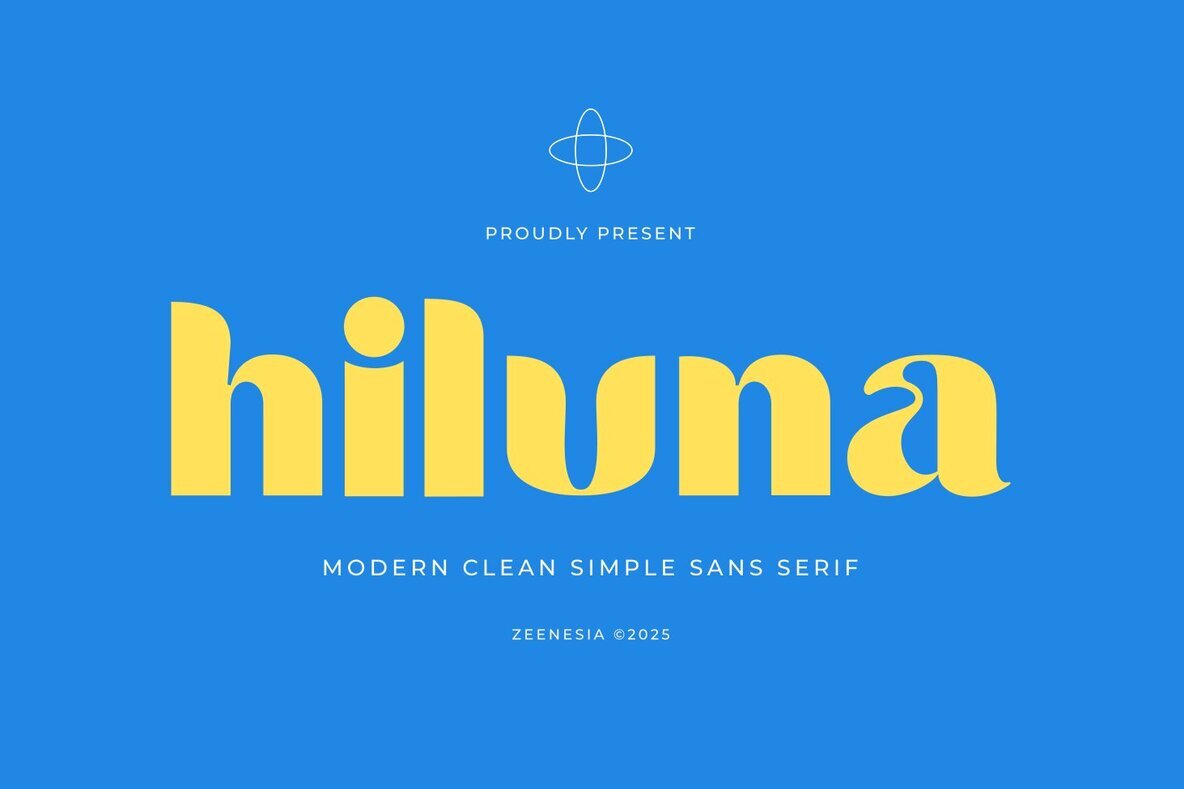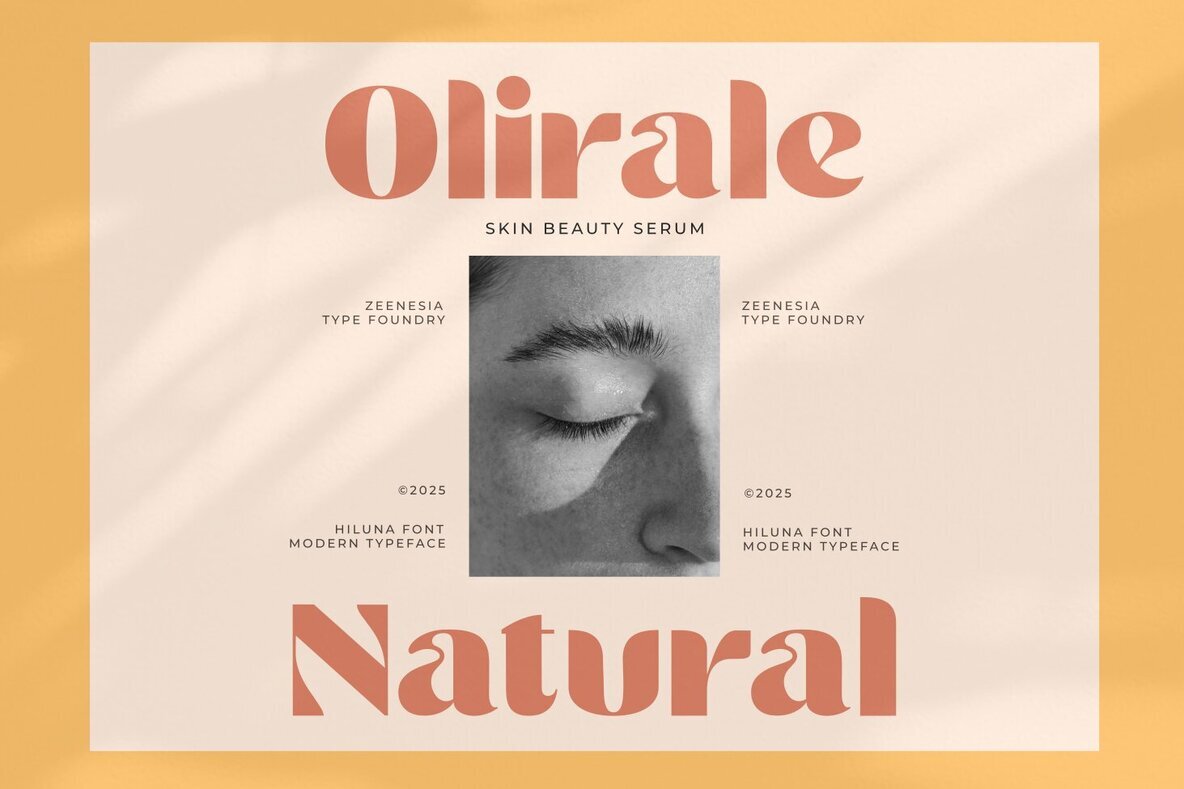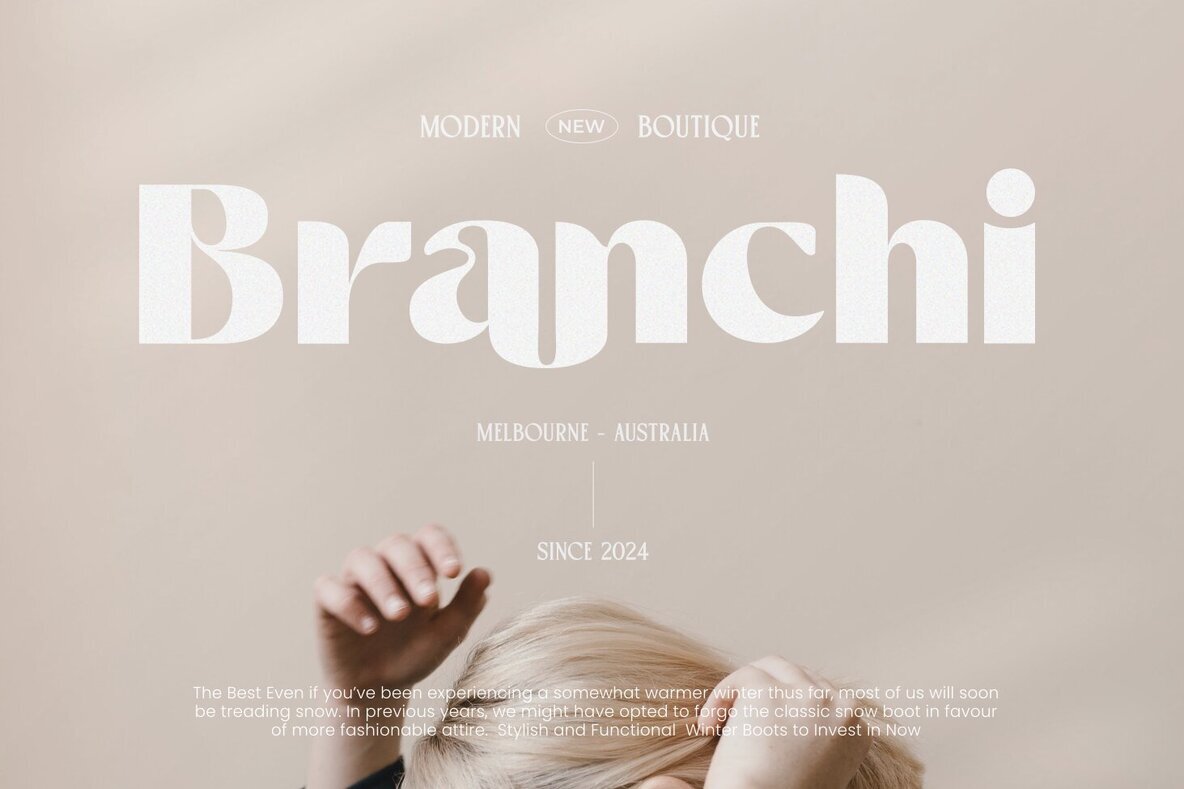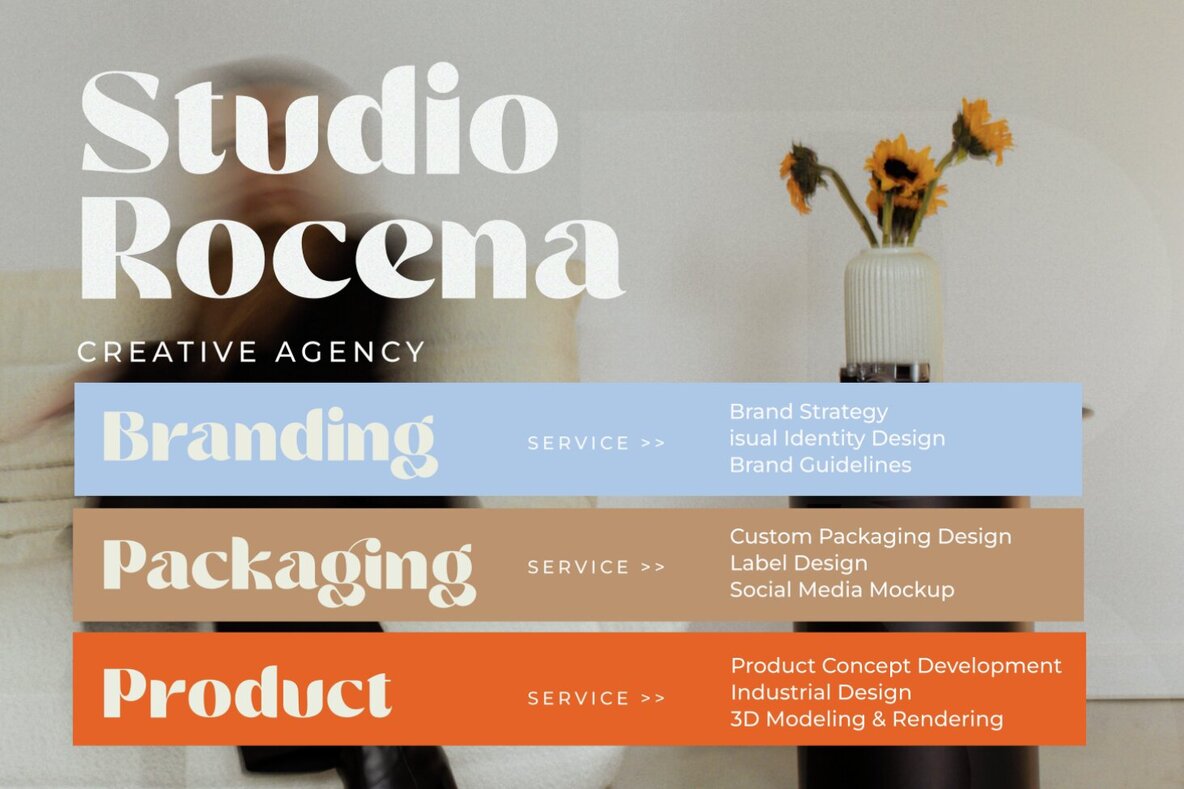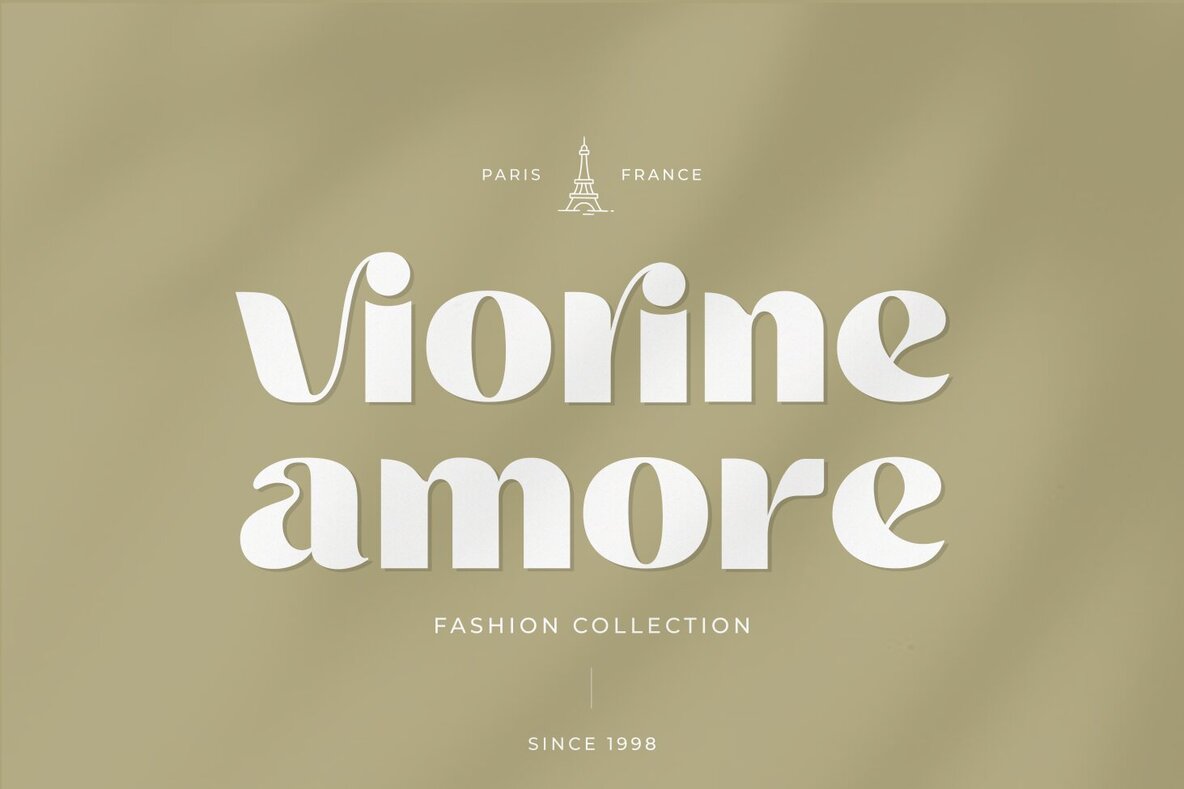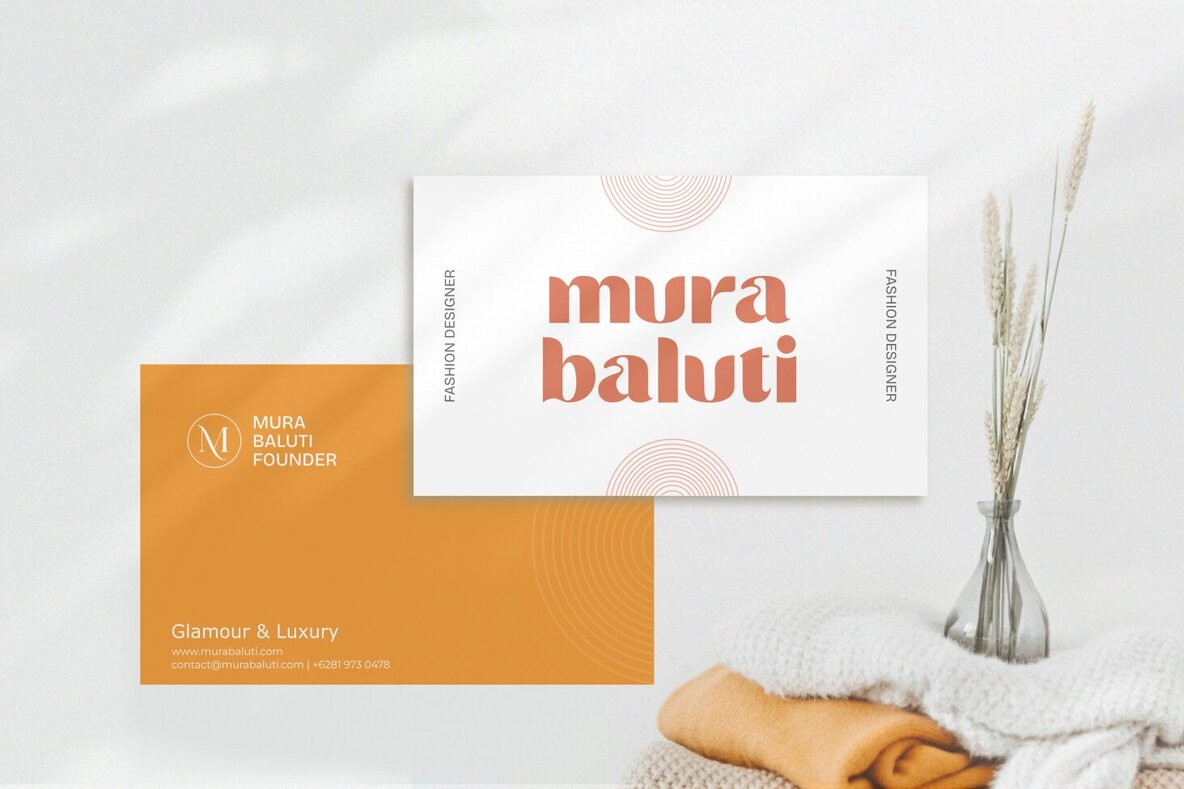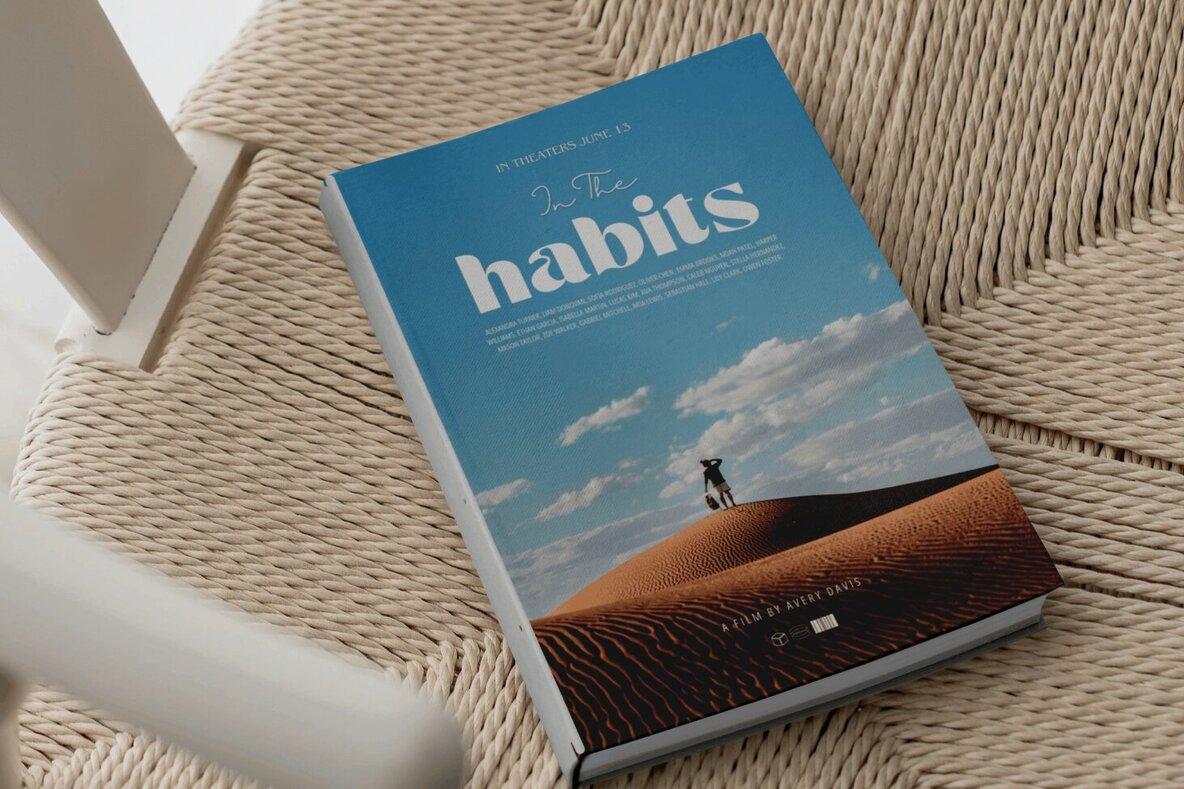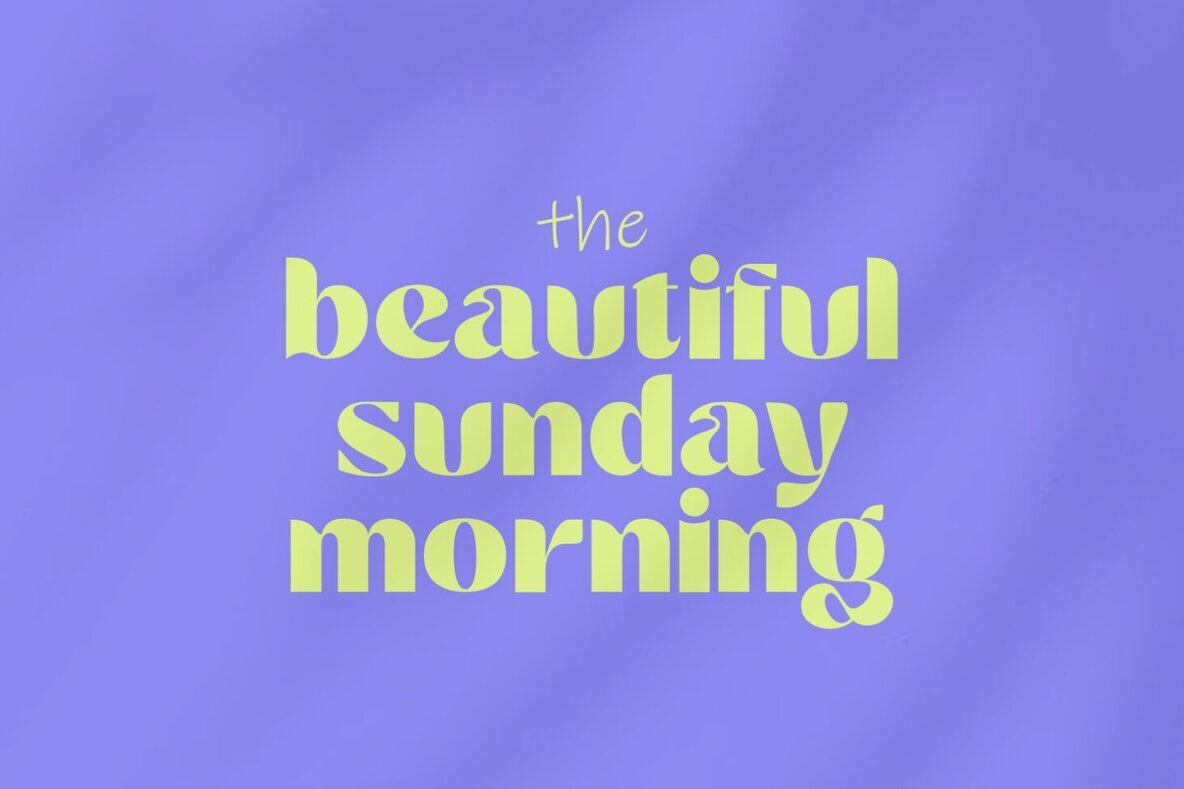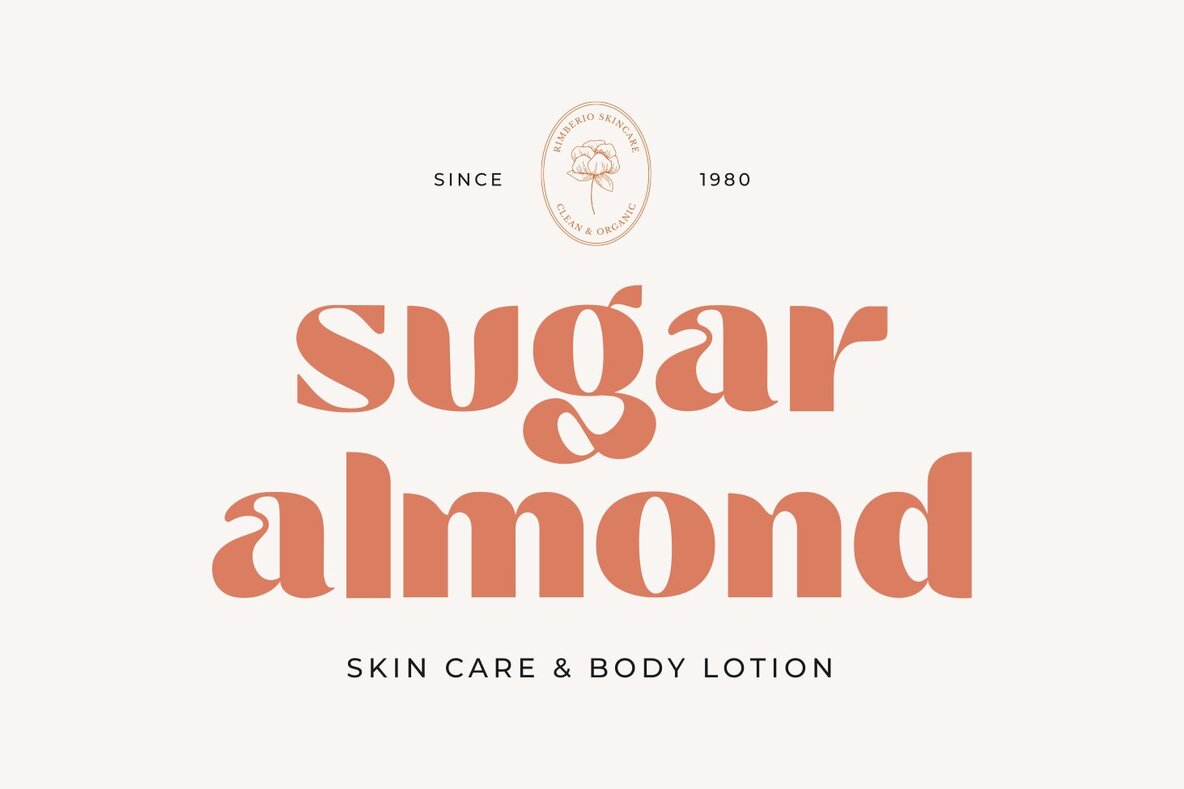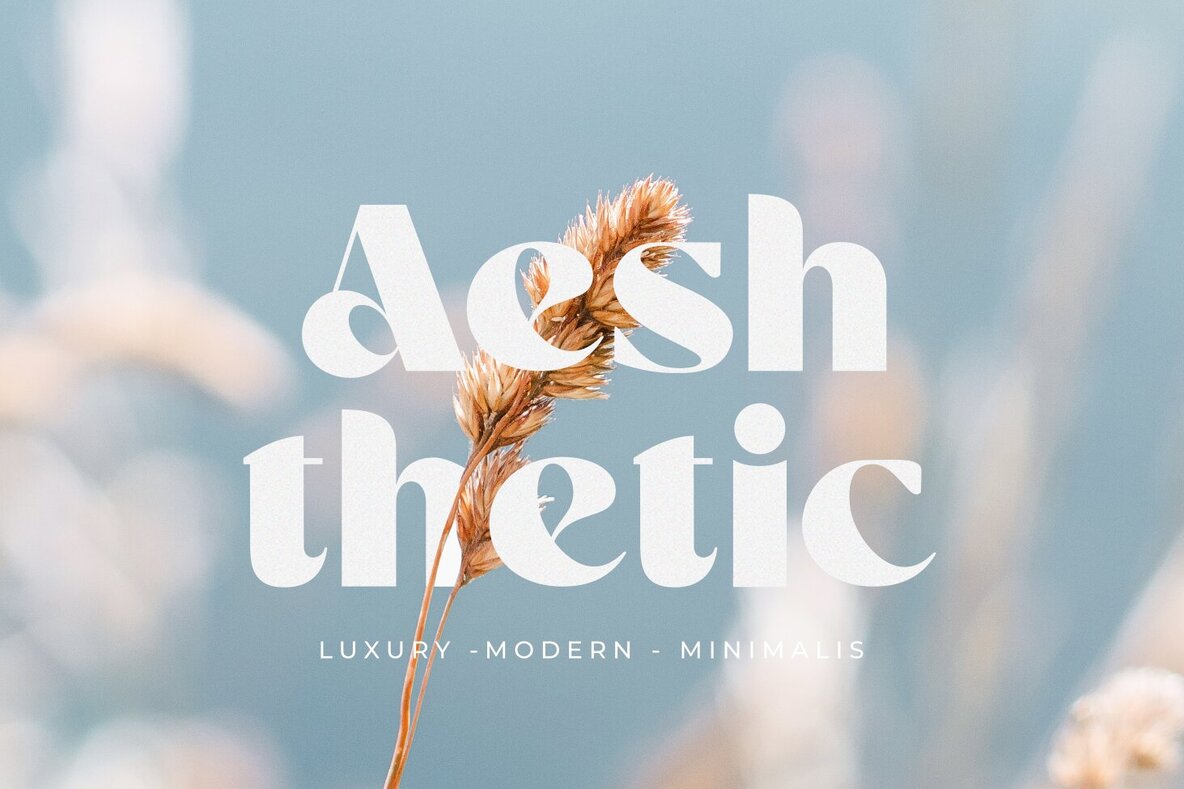
Hiluna Font
Hiluna Regular
Discover Hiluna, a remarkable sans-serif font that artfully combines modern simplicity with a touch of character. With its clean lines and gentle curves, Hiluna offers distinctive letterforms that capture attention while maintaining excellent legibility. Perfectly versatile, it's ideal for branding, editorial designs, logos, and digital projects. Whether enhancing bold headlines or adding elegance to subtext, Hiluna injects a refined, yet unconventional, flair into any design.Hiluna Sans-Serif Font